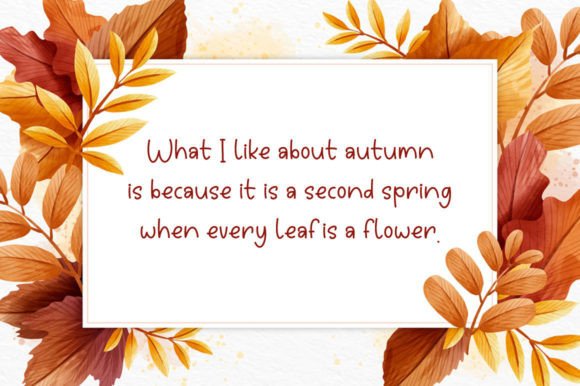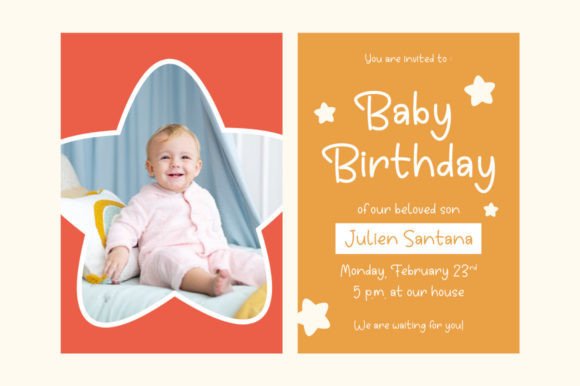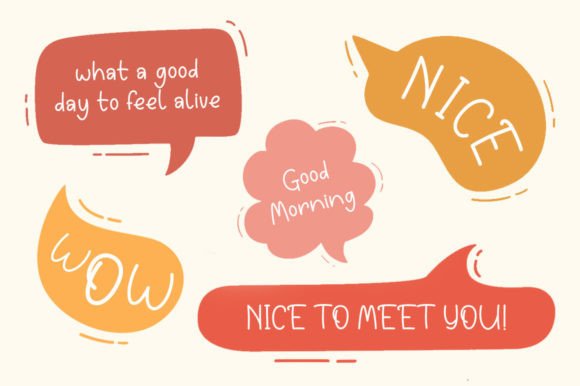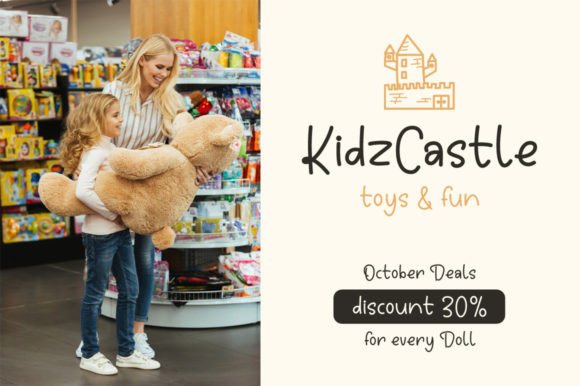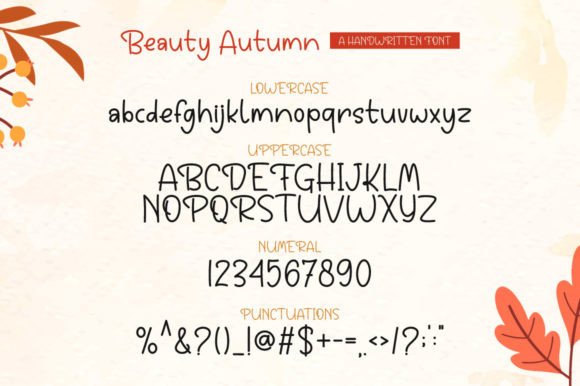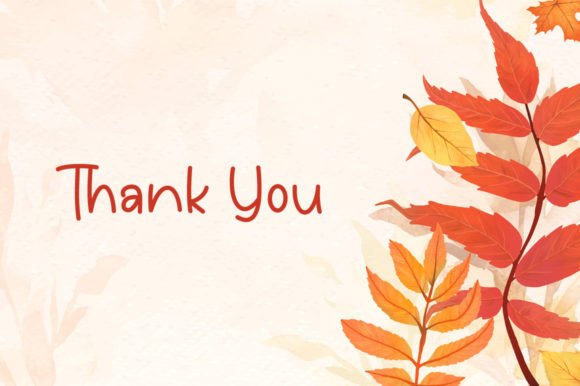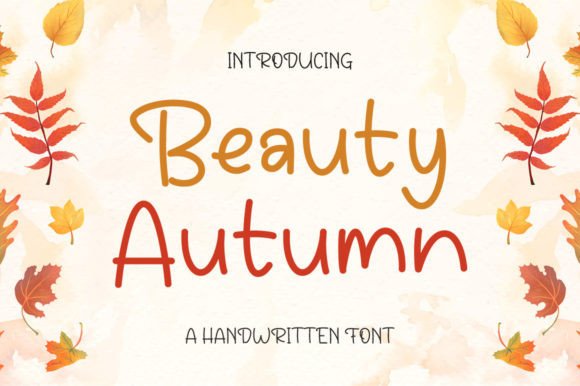
Introducing Beauty Autumn Font: Elevate Your Designs with a Touch of Whimsy
As the seasons change and autumn leaves start to fall, designers and crafters are on the lookout for fonts that capture the essence of this cozy time of year. If you’re searching for a font that adds a fun and smart-looking touch to your designs, look no further than Beauty Autumn Font. This charming handwritten font is perfect for a wide range of projects, from invitations and greeting cards to logos and business cards.
Handwritten fonts have a unique ability to add a personal touch to any design. They evoke a sense of warmth and friendliness, making them perfect for projects that require a more approachable and inviting feel. Beauty Autumn Font takes this to the next level with its playful and whimsical flair. Its cute and endearing appearance is sure to capture the hearts of your audience and leave a lasting impression.
What Makes Beauty Autumn Font Special?
So, what sets Beauty Autumn Font apart from other fonts out there? Here are a few key features that make it a standout:
• Fun and Smart-Looking: Beauty Autumn Font strikes the perfect balance between playfulness and sophistication. Its unique lettering style is both fun and elegant, making it suitable for a wide range of designs.
• Handwritten with Love: This font is carefully crafted to mimic the look and feel of handwritten text. Each letter is carefully designed to convey a sense of personality and warmth.
• Versatile: Whether you’re working on invitations, thank you cards, quotes, greeting cards, logos, business cards, or any other design that needs a customized touch, Beauty Autumn Font is the perfect choice.
Use Cases for Beauty Autumn Font
The versatility of Beauty Autumn Font makes it suitable for a wide range of projects. Here are some use cases to get you started:
• Invitations: Add a touch of whimsy to your wedding invitations, birthday party invites, or baby shower announcements.
• Greeting Cards: Create personalized greeting cards for special occasions, such as holidays, birthdays, or thank you cards.
• Logos and Branding: Use Beauty Autumn Font to create a unique and memorable logo for your business or brand.
• Business Cards: Stand out from the crowd with custom business cards that feature your name and contact information in a fun and stylish font.
• Social Media Graphics: Add a personal touch to your social media graphics, such as quote graphics, motivational posts, or announcement graphics.
Tips for Using Beauty Autumn Font
To get the most out of Beauty Autumn Font, here are a few tips to keep in mind:
• Pair with Other Fonts: Experiment with pairing Beauty Autumn Font with other fonts to create a unique and visually appealing combination.
• Play with Colors: Don’t be afraid to experiment with different colors and textures to add depth and interest to your design.
• Keep it Simple: Remember that sometimes less is more. Keep your design simple and clean to let the font take center stage.
Font Name Beauty Autumn Font
Author Nirmala Creative
Beauty Autumn Font is a fun and smart-looking handwritten font that’s perfect for designers and crafters looking to add a touch of whimsy to their designs. With its unique lettering style, versatility, and ease of use, it’s an excellent choice for a wide range of projects. Whether you’re working on invitations, greeting cards, logos, or business cards, Beauty Autumn Font is sure to elevate your designs and leave a lasting impression on your audience.